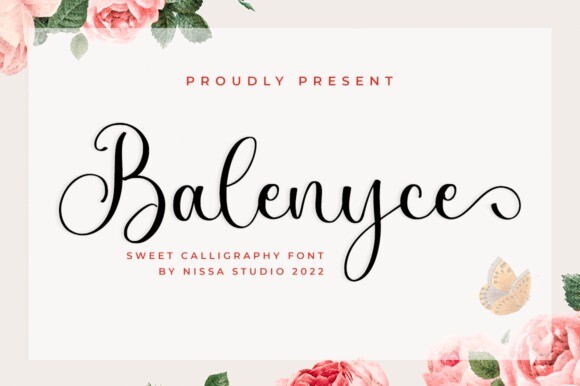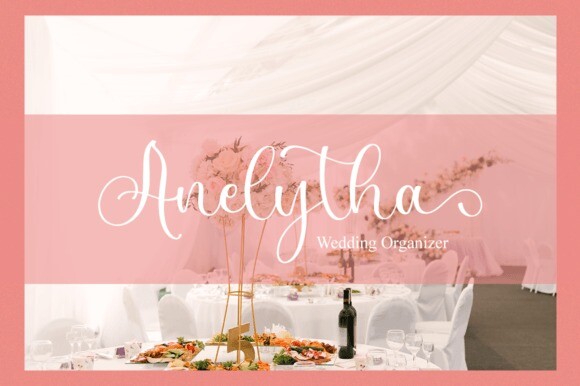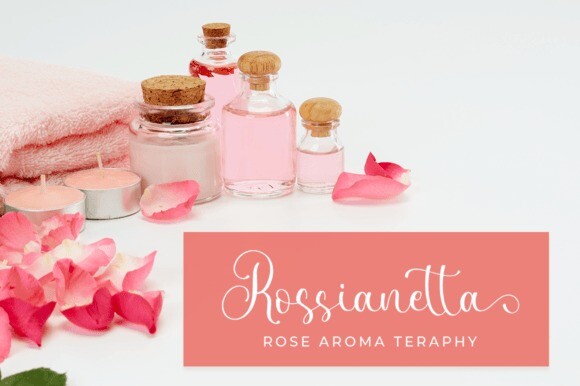
Balenyce Font
Balenyce is a lovely and delicate script font that exudes elegance and class. This font is perfect for those who need a beautiful and refreshing look to their designs. This font is PUA encoded which means you can access all of the glyphs and swashes with ease!